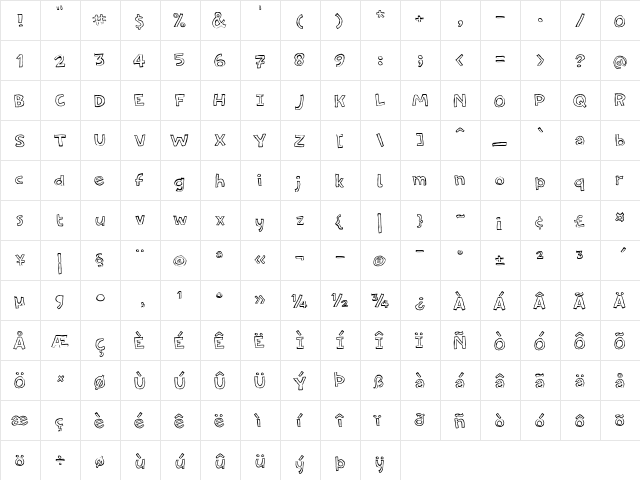
PF Amateur Flat Font Preview
PF Amateur Flat
PF Amateur Flat Font Details
| Style | Flat |
| Foundry | Parachute蠗orldwide |
| Designer | Charis Tsevis |
Design Context for PF Amateur Typeface
PF Amateur is a composed and adaptable typeface that performs quietly and consistently across a wide range of design contexts.